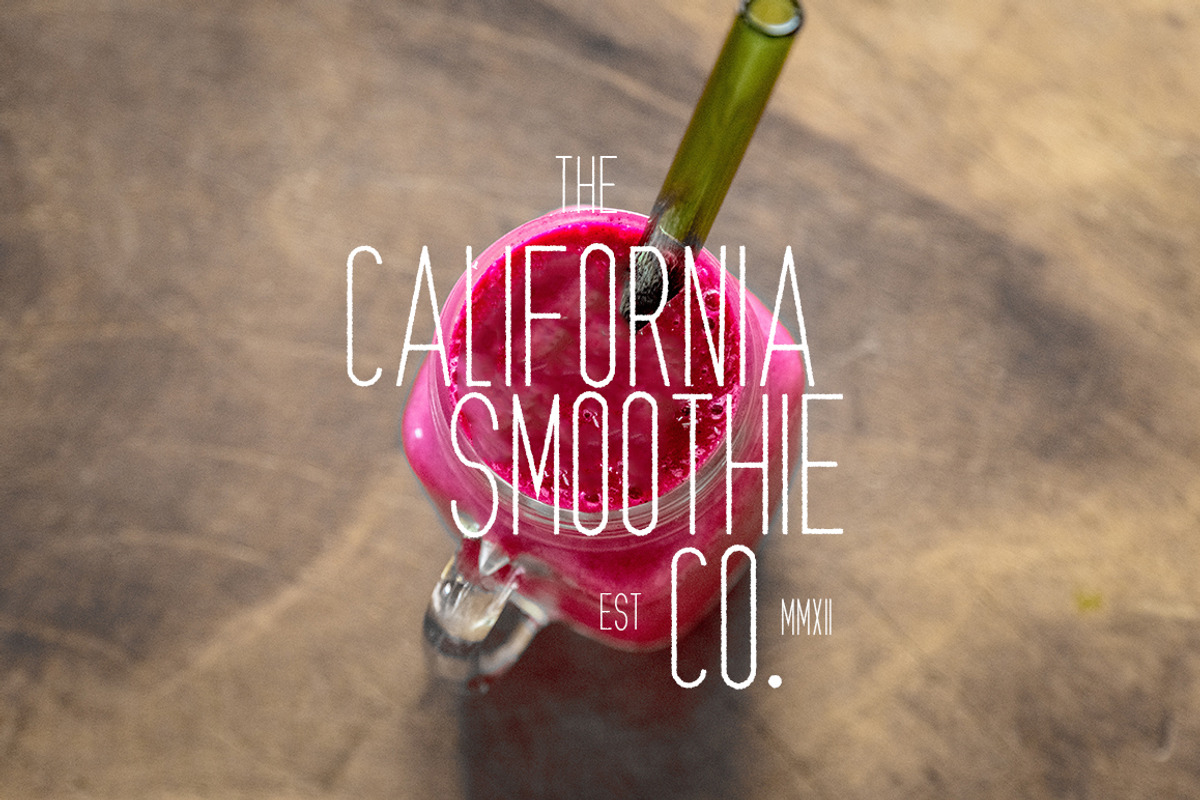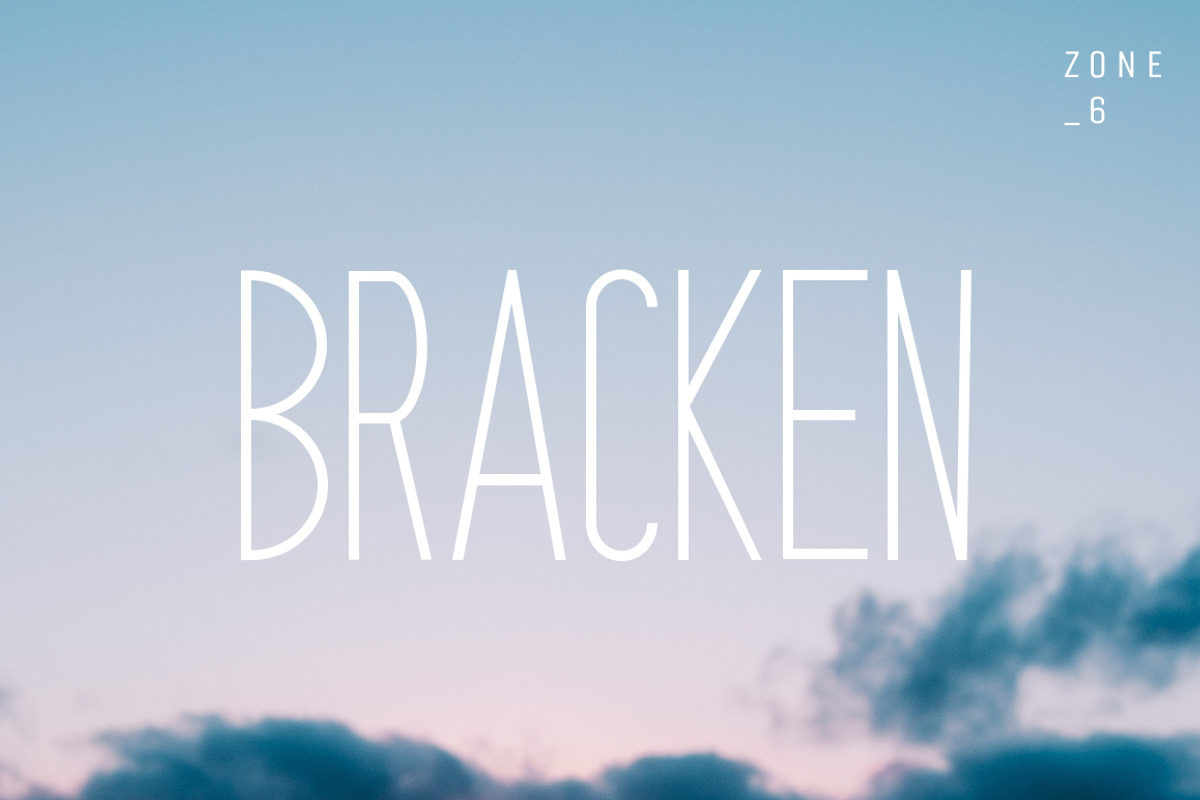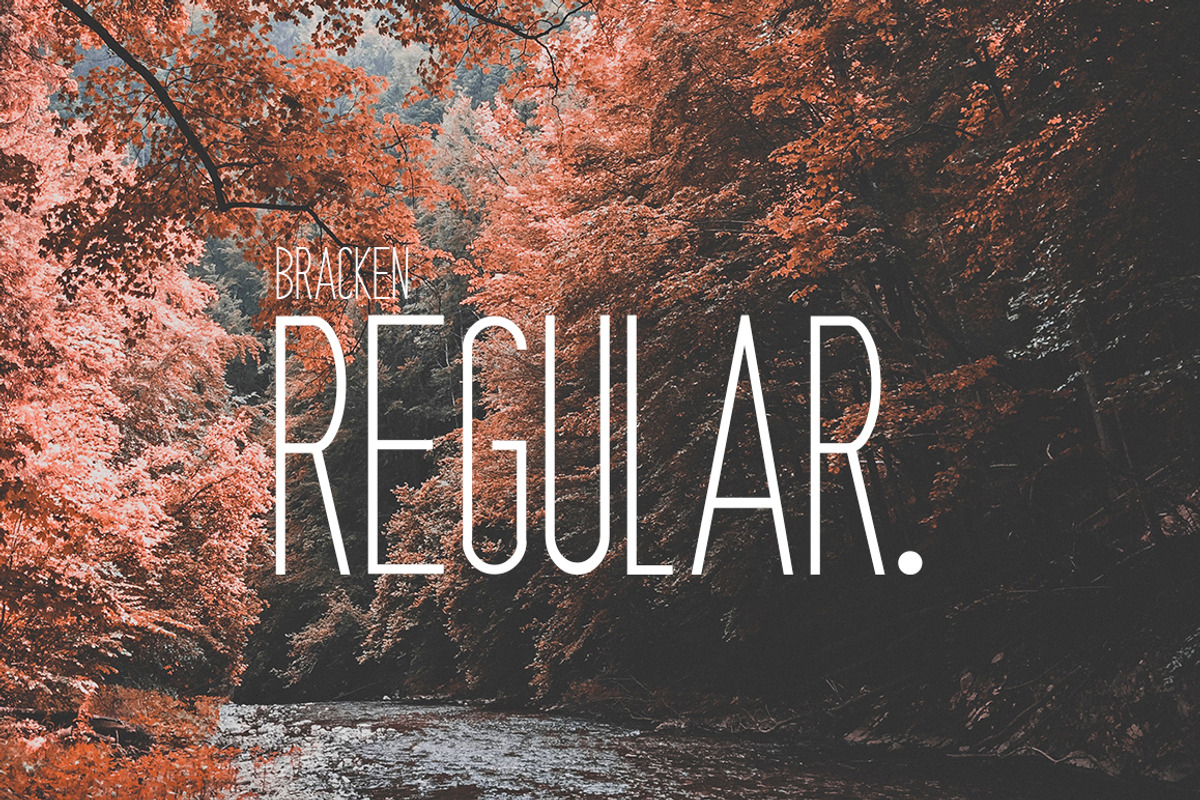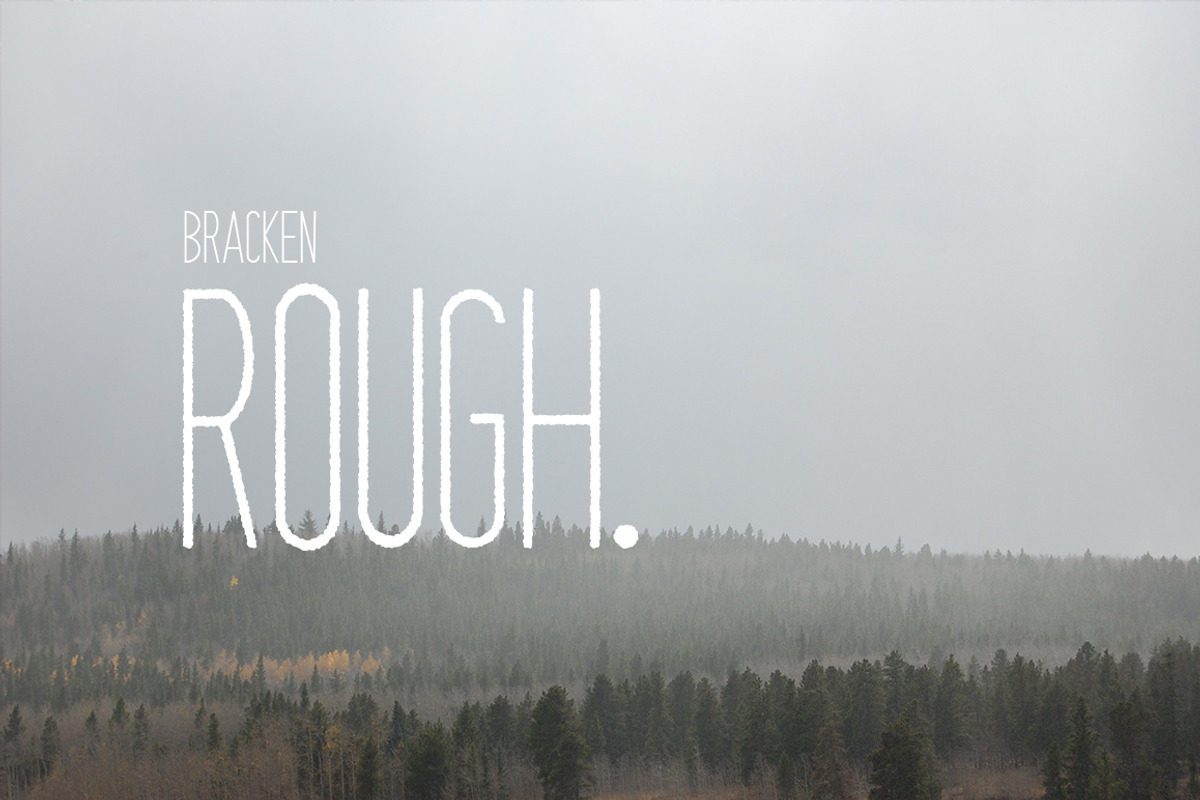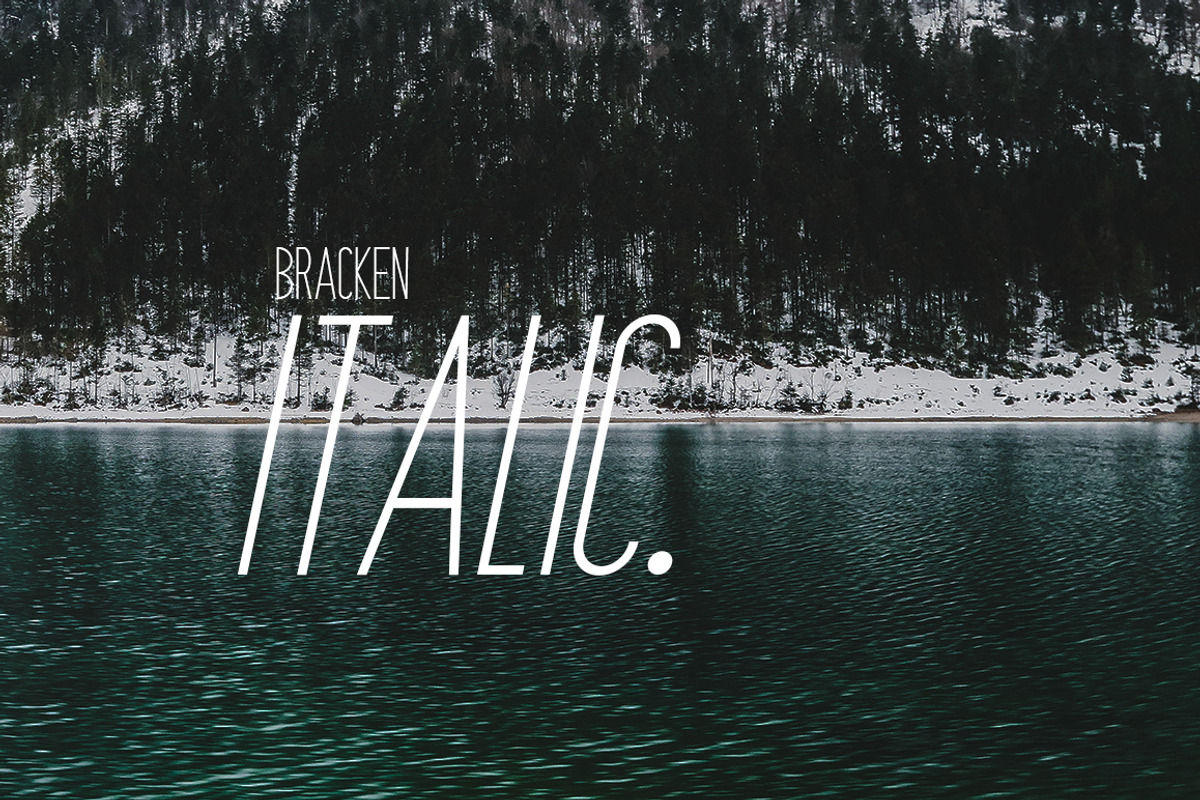
Bracken | A Hipster Font Family
Instantly Create Designs That Stand Out As Part of the Cool Crowd!
Bracken is a hipster font family, designed to add an edgy, modern and casual style to all your designs. Bracken comes with its original font, rough, rounded and italic versions, so you won't need anything else to create amazing work!
Bracken has been designed for up and coming businesses, branding, signage, and logotypes, but is versatile enough to work with anything you choose! It works particularly well for the food and drink, beauty, hospitality and events industries.
- Optimized kerning for aesthetic and highly readable texts
So if you're looking to appeal to today's target market, by creating trending, hipster designs, this is the font family for you!